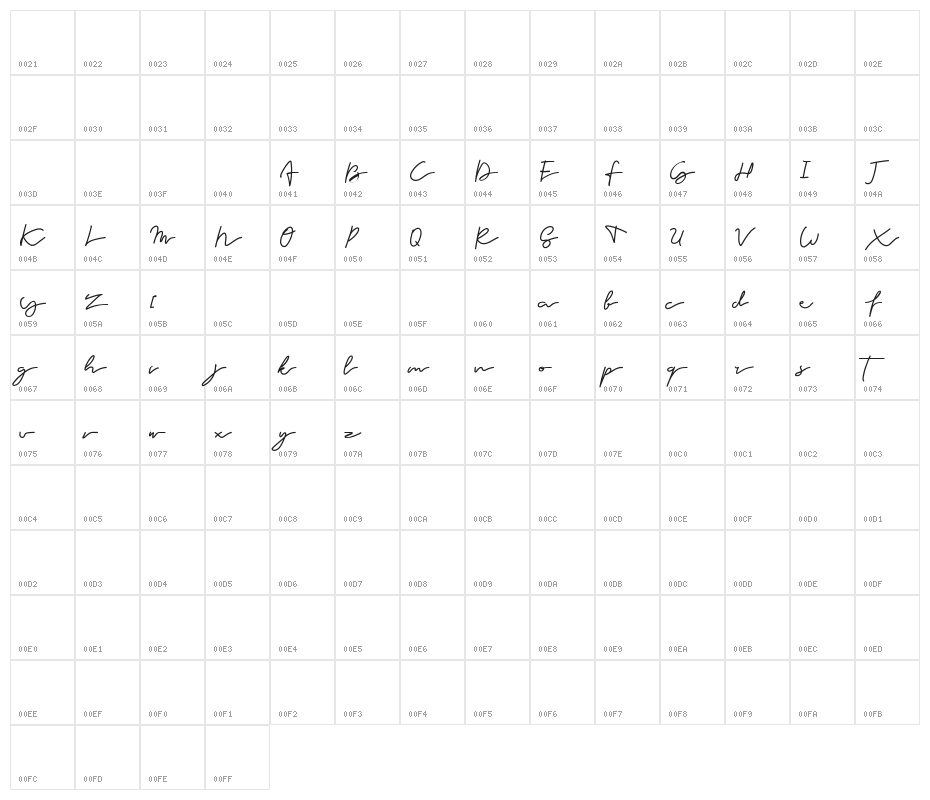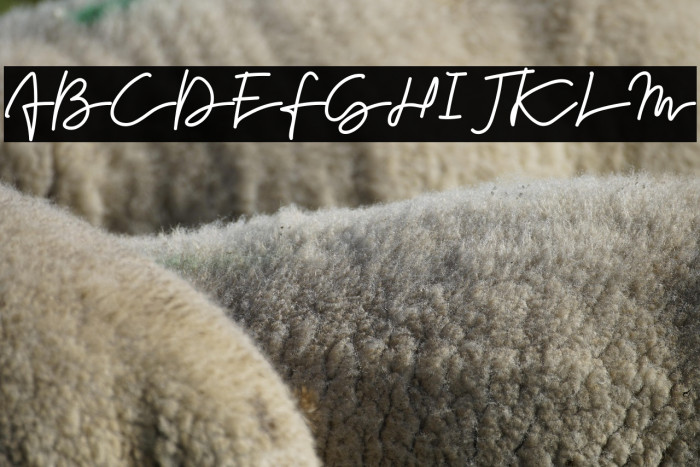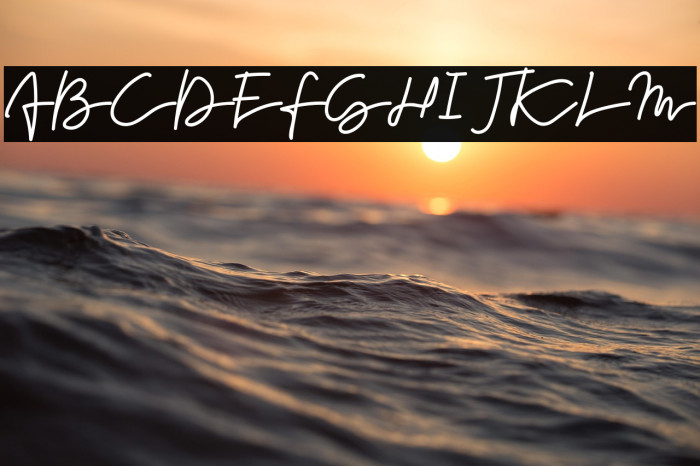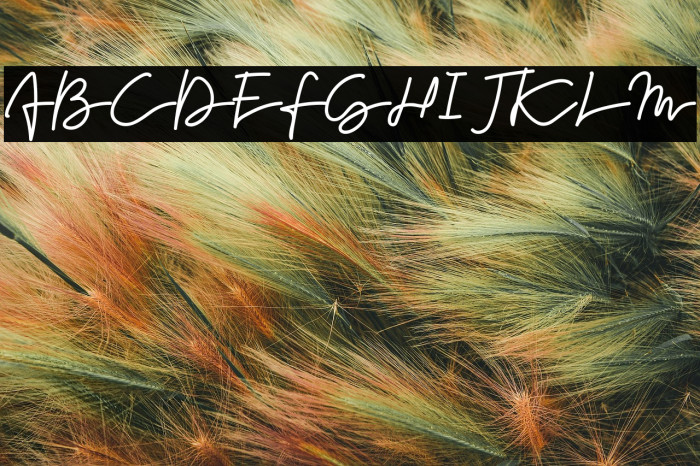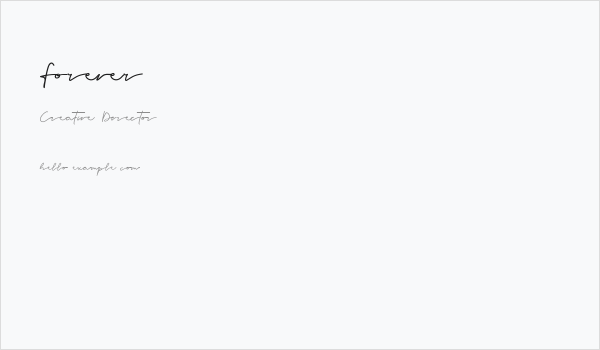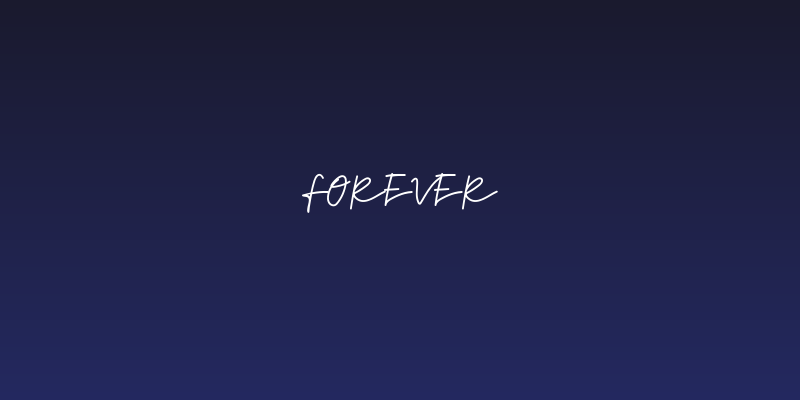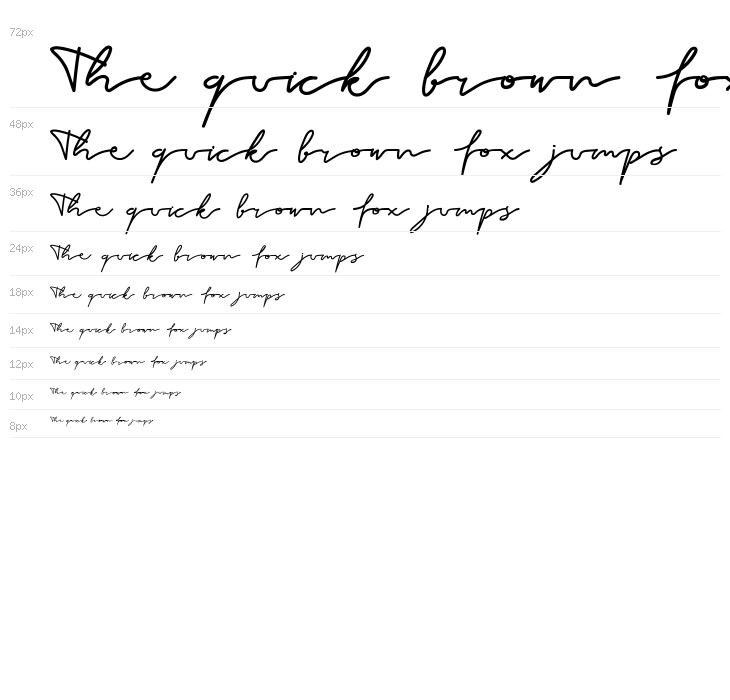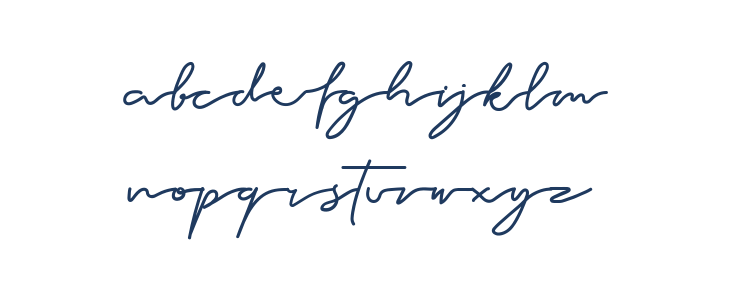
Forever Font
Forever Description
This font features a flowing, cursive style that mimics elegant handwriting. The letters are connected, creating a seamless and fluid appearance. The strokes are smooth and consistent, with a slight variation in thickness that adds a touch of sophistication. The uppercase letters are distinct and stylish, while the lowercase letters maintain a graceful continuity. This font exudes a sense of personal touch and creativity, making it ideal for projects that require a handwritten feel. Its overall design is both modern and timeless, suitable for a variety of applications.
| Use Case | Logos, Invitations, Artistic projects |
| Proposed Projects | Ideal for wedding invitations, personal branding, greeting cards, and artistic projects. |